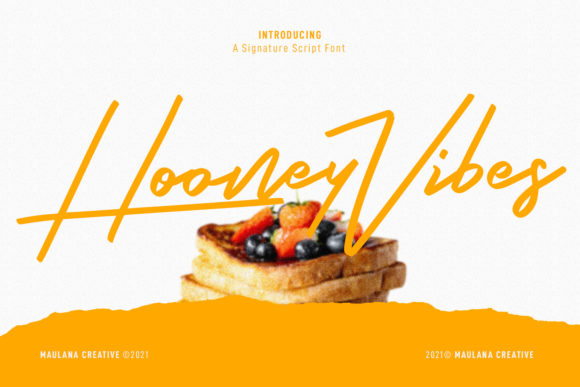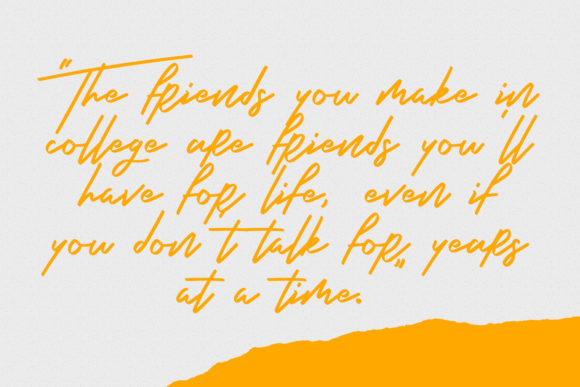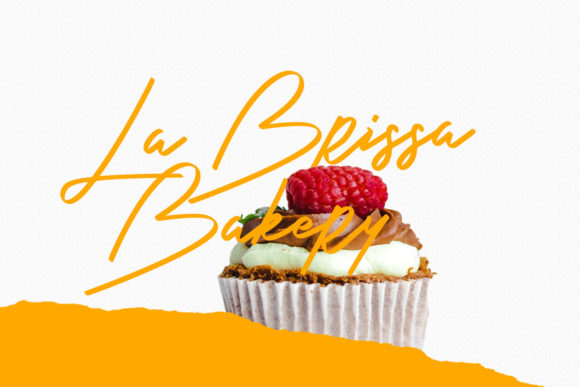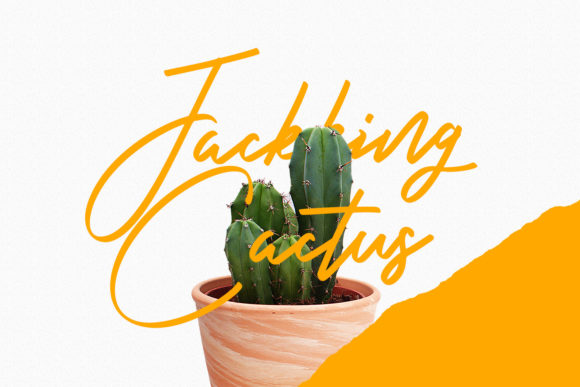
About Hooney Vibes Font
Hooney Vibes is an expressive signature script font. It looks lovely on wedding invitations, thank you cards, quotes, greeting cards, logos, business cards and every other design which needs a customized touch.